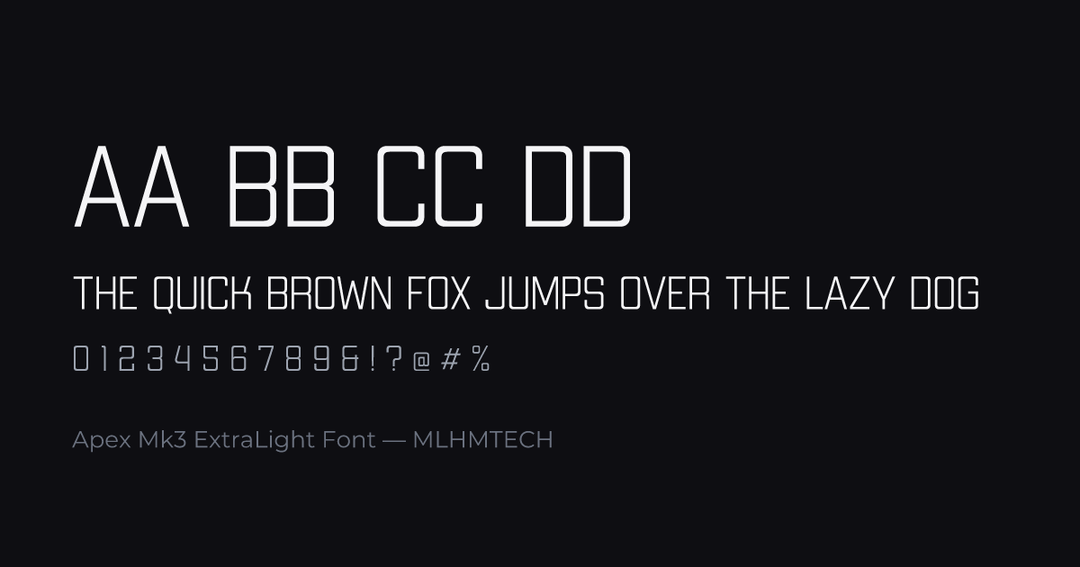
Apex Mk3 ExtraLight Font
Apex Mk3 ExtraLight is a sleek, modern sans-serif font with a light weight, ideal for elegant branding, logos, and web design.
Apex Mk3 ExtraLight is a refined sans-serif typeface that exudes modern sophistication. Its extra-light weight creates a delicate, airy feel, perfect for high-end branding, editorial layouts, and minimalist web design. The clean lines and geometric structure ensure excellent legibility at various sizes, making it a versatile choice for both print and digital projects.
This font is part of the Apex Mk3 family, known for its contemporary aesthetic and technical precision. Whether you're designing a logo, crafting a website, or laying out a magazine, Apex Mk3 ExtraLight adds a touch of elegance and clarity. Its subtle curves and balanced proportions make it a favorite among designers seeking a refined, unobtrusive typeface.